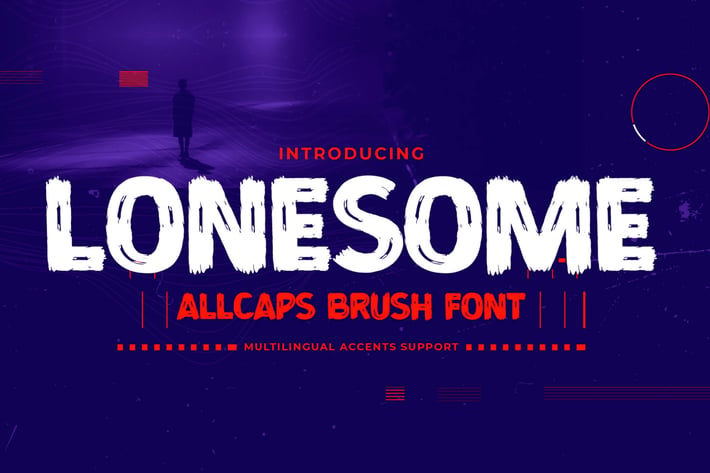
Lonesome - All Caps Brush Font
Here comes a New font, Lonesome is a All Caps Brush Font that is written casually and quickly.
Letters are made with brushes on Procreate. Then crafted carefully drawn into vector format.
That is why Lonesome has Stylish and strong characteristic more natural look to your text with a more modern look to your text.
Lonesome is perfect for homeware designs,branding projects, Logo design, Quotes ,product packaging,printed invitations, cards, headers, Logotype, Letterhead, Poster,Label, cartoon, and comic etc.